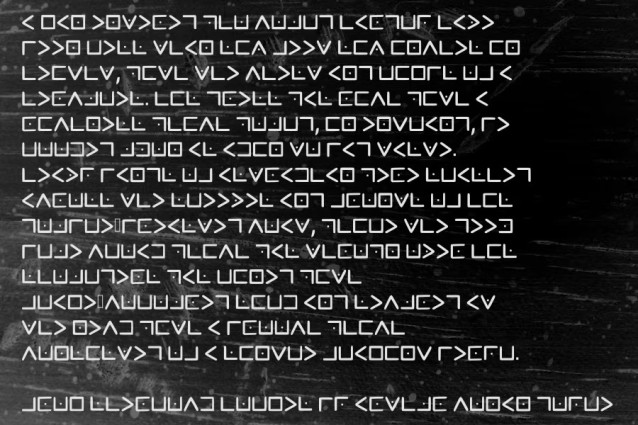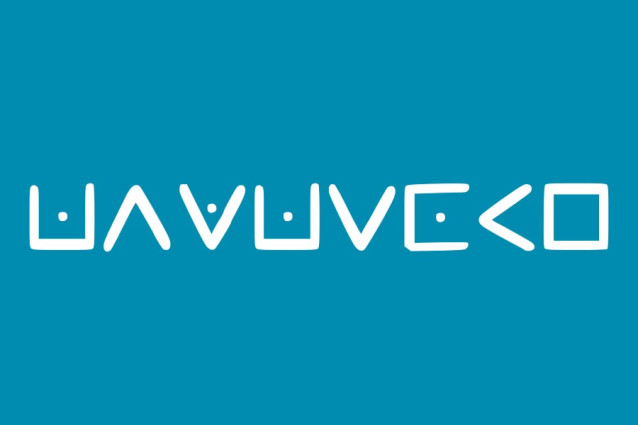
Octogram Font, perfectly fit for branding, logo, wedding things, greeting cards, fashion, lookbook, marketing promotion, anytime you want to look fancy elegant but still casual.
Octogram Font